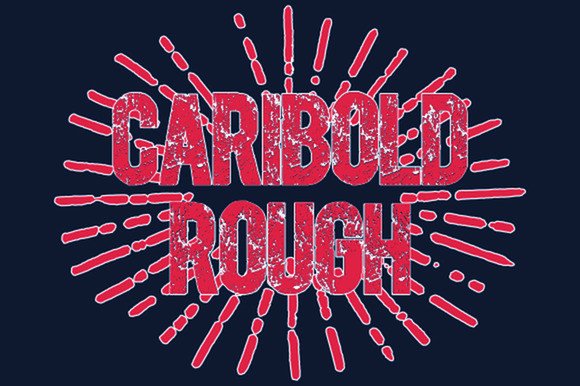
Caribold Font: The Ultimate Sans Serif for a Masculine Edge
When it comes to typography, the right font can make all the difference in the world. It can elevate your design, convey your message, and even evoke emotions. If you’re looking for a font that exudes a tough, masculine energy, look no further than Caribold. This ripped, textured sans serif font is highly decorative and perfect for adding a rugged touch to your work.
What is Caribold Font?
Caribold is a sans serif font that boasts a unique, distressed look. Its ripped and textured appearance gives it a rough-around-the-edges feel that’s perfect for designs that require a bit of grit and attitude. The font’s bold and chunky appearance makes it highly legible, even at smaller sizes.
Key Features of Caribold Font
- Ripped and Textured Appearance: Caribold’s unique distressed look sets it apart from other sans serif fonts.
- Bold and Chunky: The font’s bold appearance makes it highly legible, even at smaller sizes.
- Masculine Energy: Caribold’s rugged appearance gives it a distinctly masculine edge.
- Highly Decorative: The font’s textured appearance makes it perfect for adding a decorative touch to your designs.
Uses for Caribold Font
Caribold’s unique appearance makes it perfect for a variety of design projects. Here are a few ideas to get you started:
- Branding and Logo Design: Caribold’s bold and rugged appearance makes it perfect for logos and branding projects that require a bit of edge.
- Poster Design: The font’s distressed look makes it perfect for posters and flyers that require a bold and eye-catching appearance.
- Packaging Design: Caribold’s textured appearance makes it perfect for packaging design projects that require a rugged and industrial look.
- Web Design: The font’s bold appearance makes it perfect for web design projects that require a bit of attitude.
Tips for Using Caribold Font
While Caribold is a highly decorative font, it can be a bit overwhelming if not used correctly. Here are a few tips to keep in mind:
- Use it Sparingly: Caribold’s bold appearance can be overwhelming if used excessively. Use it sparingly to add emphasis to your design.
- Pair it with a Neutral Font: Pair Caribold with a neutral font to create visual interest and add contrast to your design.
- Experiment with Colors: Caribold’s textured appearance looks great in a variety of colors. Experiment with different colors to find the perfect look for your design.
Alternatives to Caribold Font
If you’re looking for alternative fonts to Caribold, here are a few options to consider:
- Arial Black: A bold and chunky sans serif font that’s perfect for adding a bit of edge to your design.
- Impact: A highly legible sans serif font that’s perfect for headings and titles.
- Rockwell: A bold and rugged serif font that’s perfect for designs that require a bit of sophistication.
Caribold is a highly decorative sans serif font that’s perfect for adding a masculine edge to your designs. Its ripped and textured appearance gives it a unique and rugged look that’s sure to turn heads. Whether you’re working on a branding project, designing a poster, or creating a website, Caribold is a great choice for designers who want to add a bit of attitude to their work.